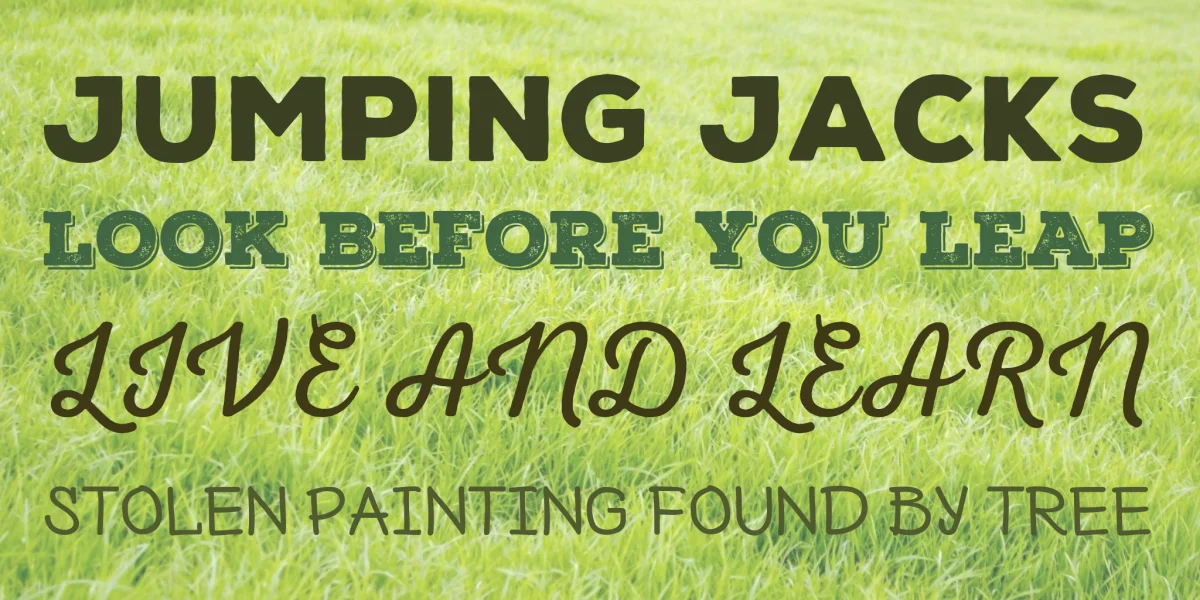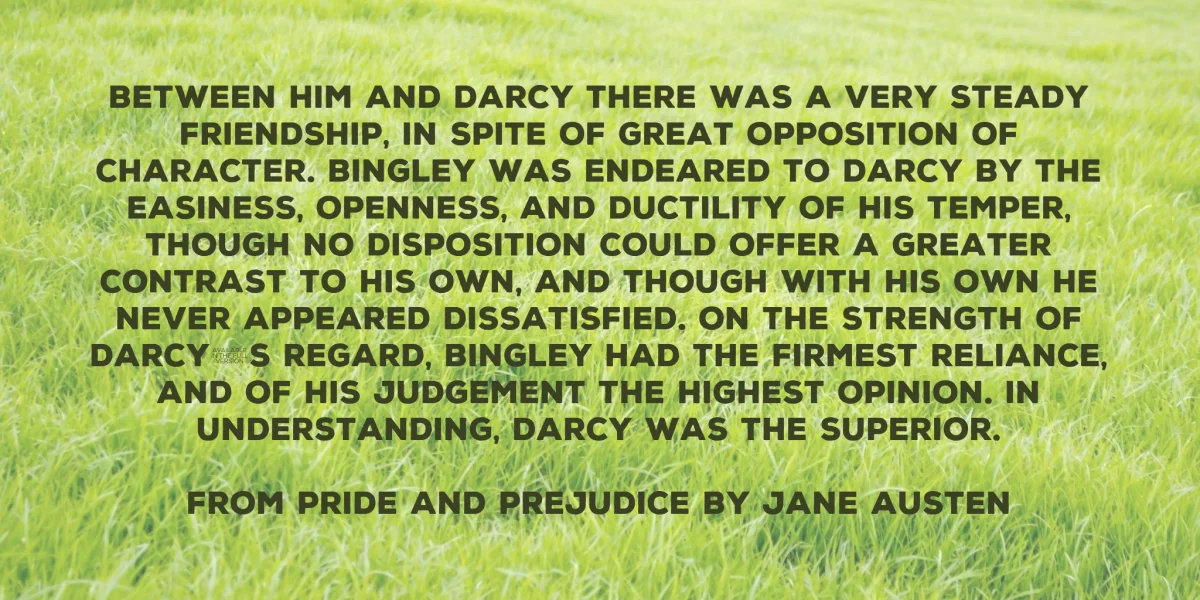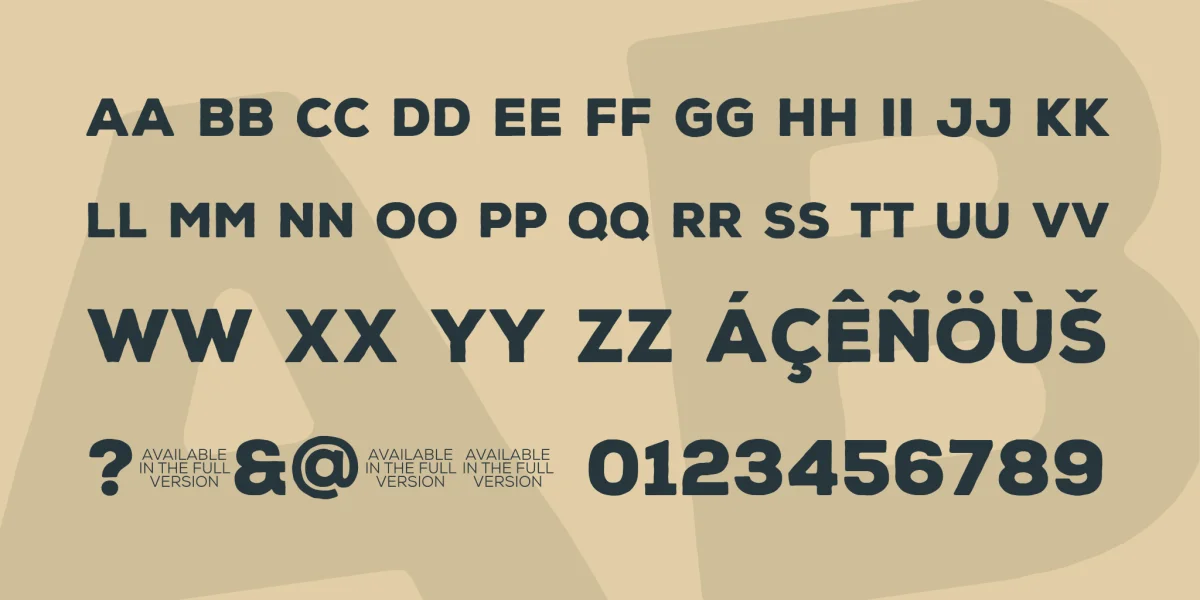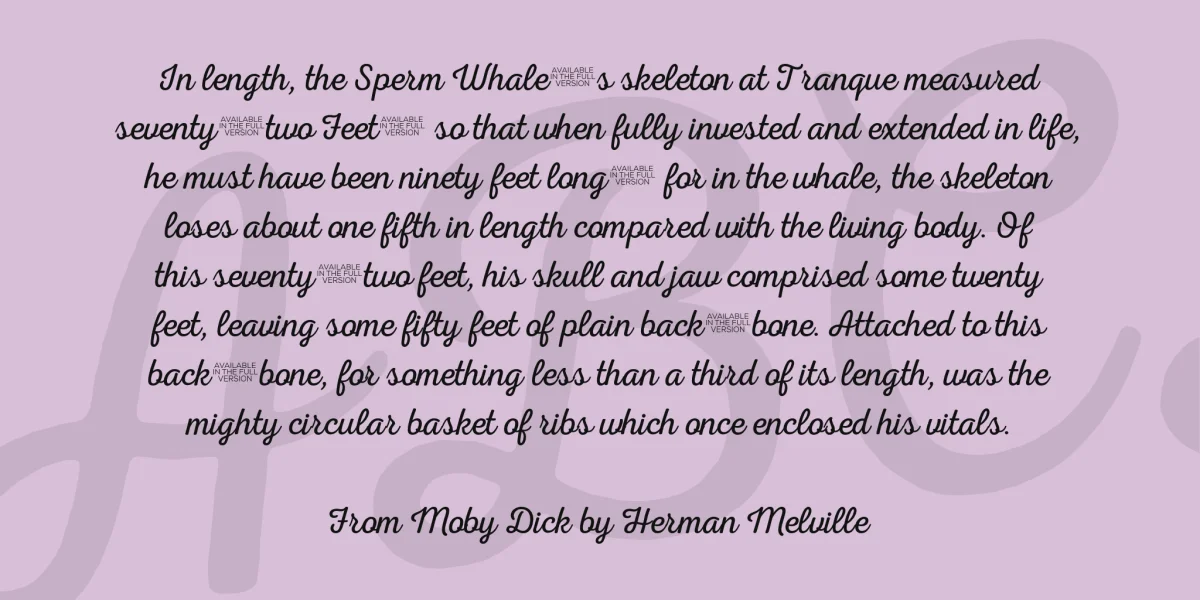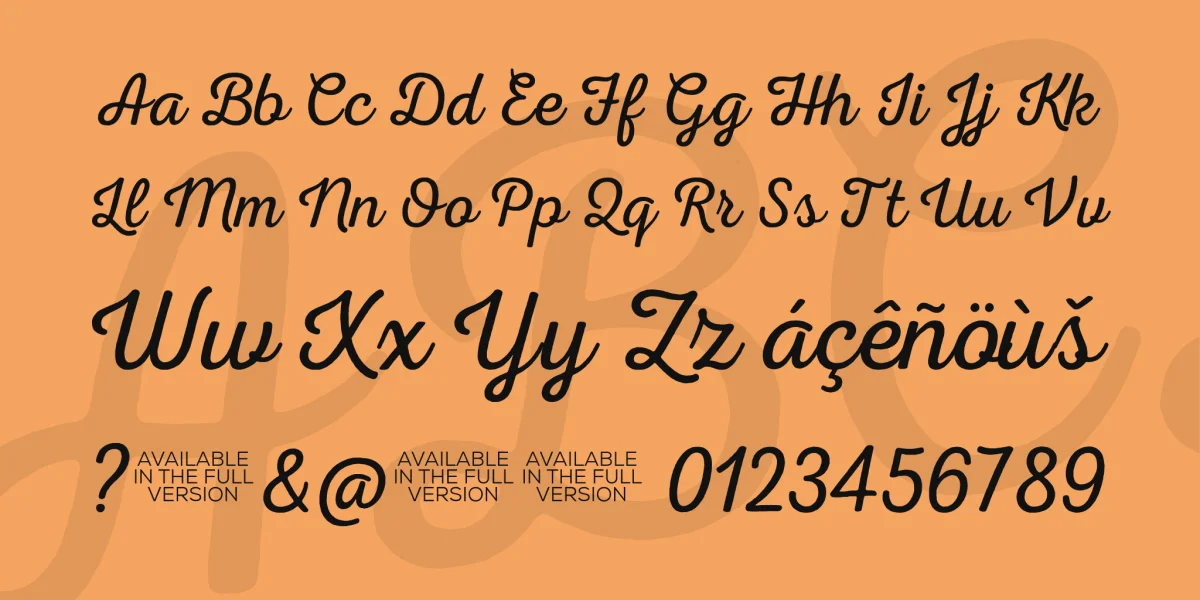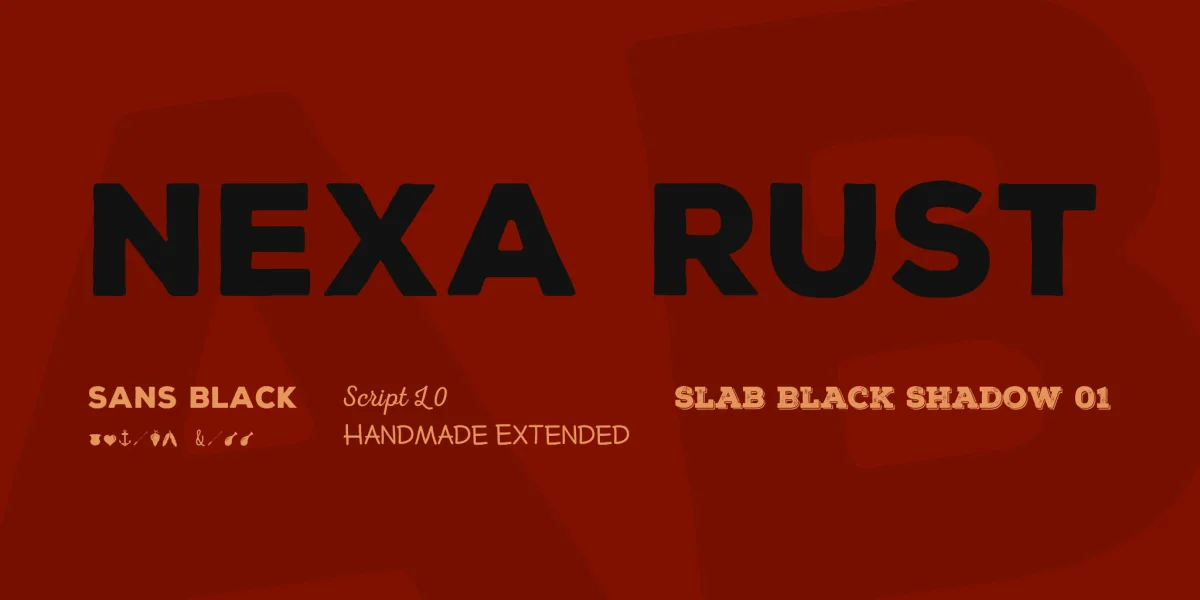
Nexa Rust from Fontfabric Type Foundry is a multifaceted font system consisting of font sub-families Sans, Slab, Script, Handmade and Extras. Nexa Rust is a rough version of the already popular Nexa and Nexa Slab families with added new matching Nexa Script and Nexa Handmade fonts.